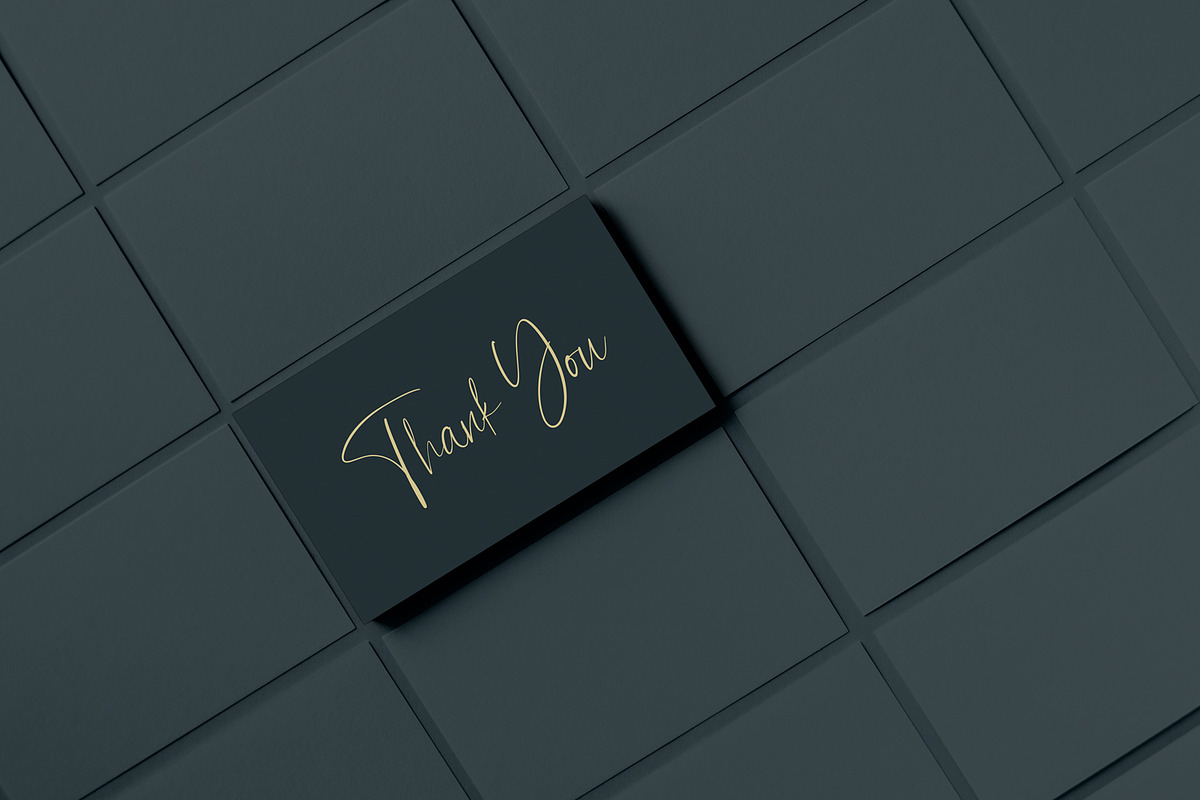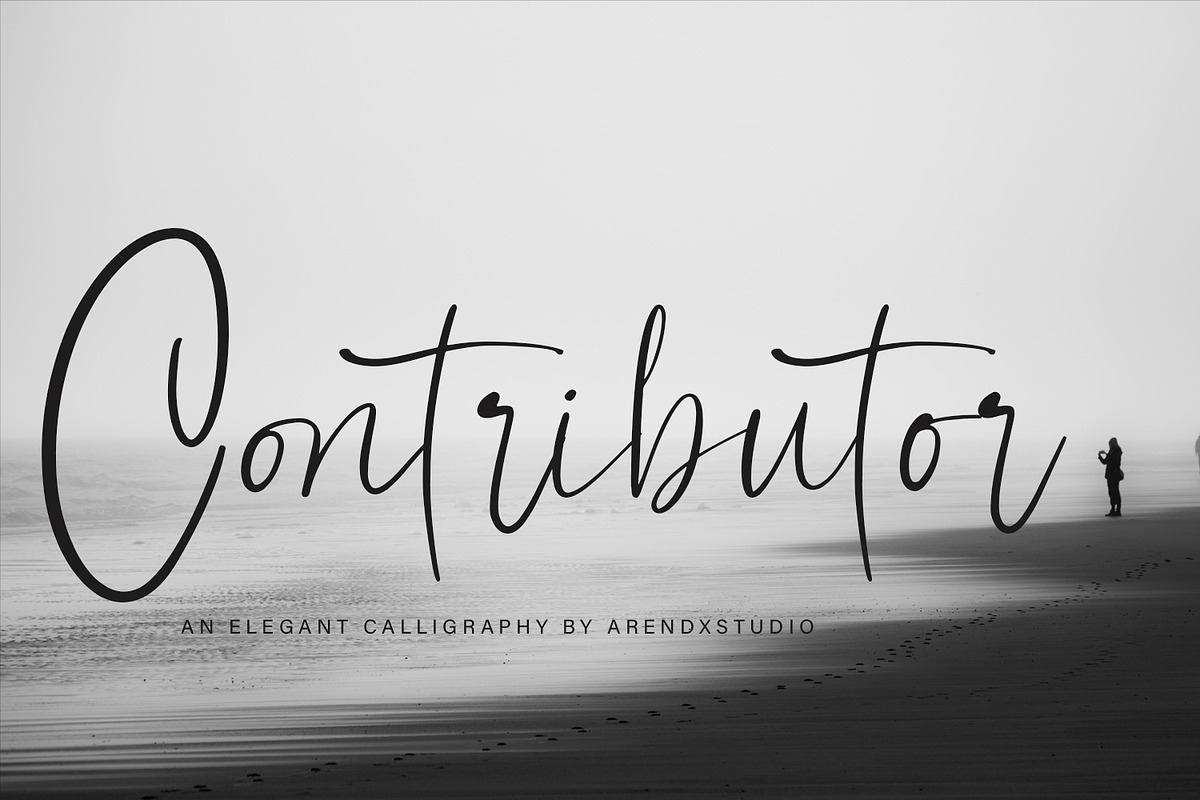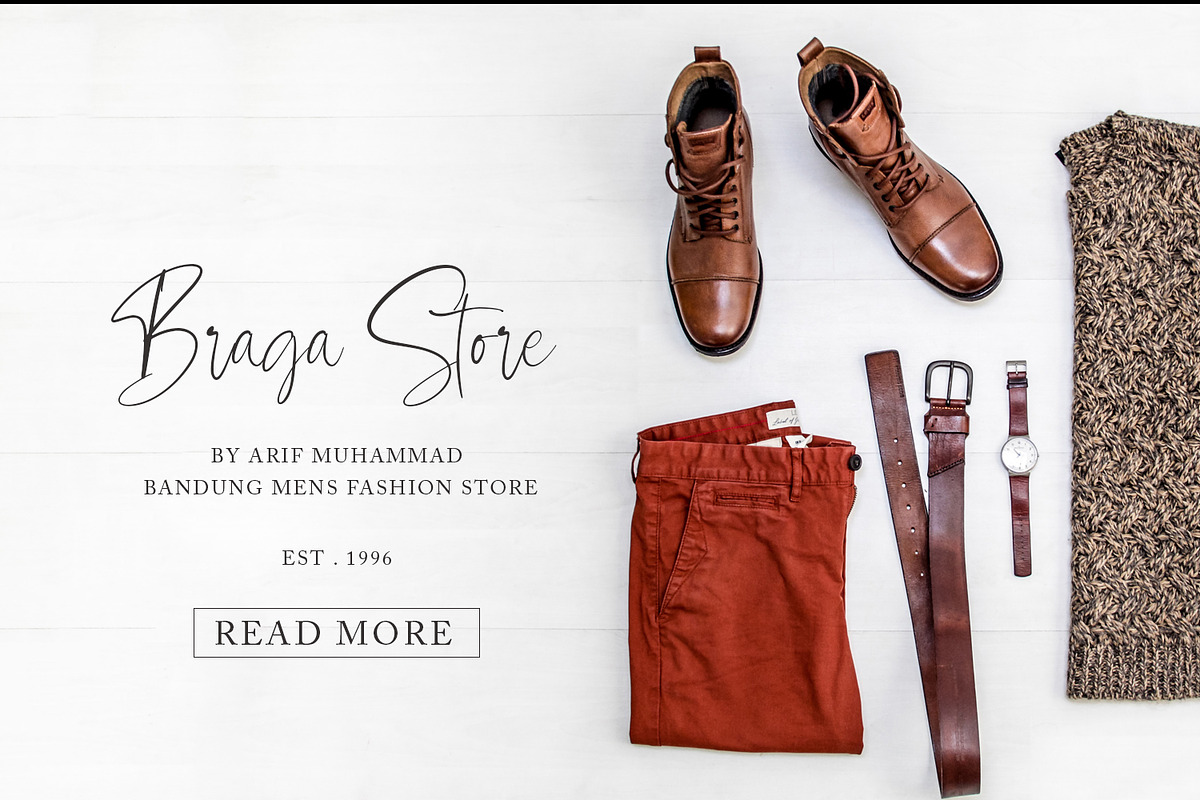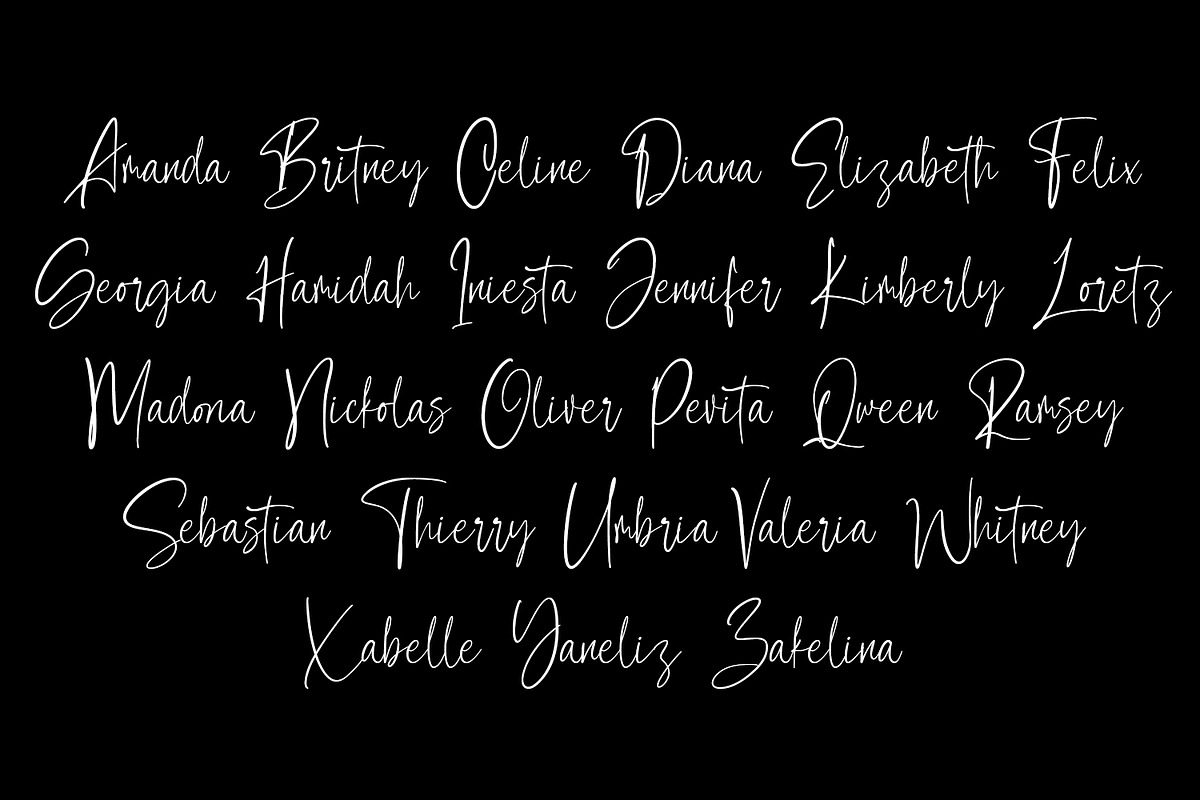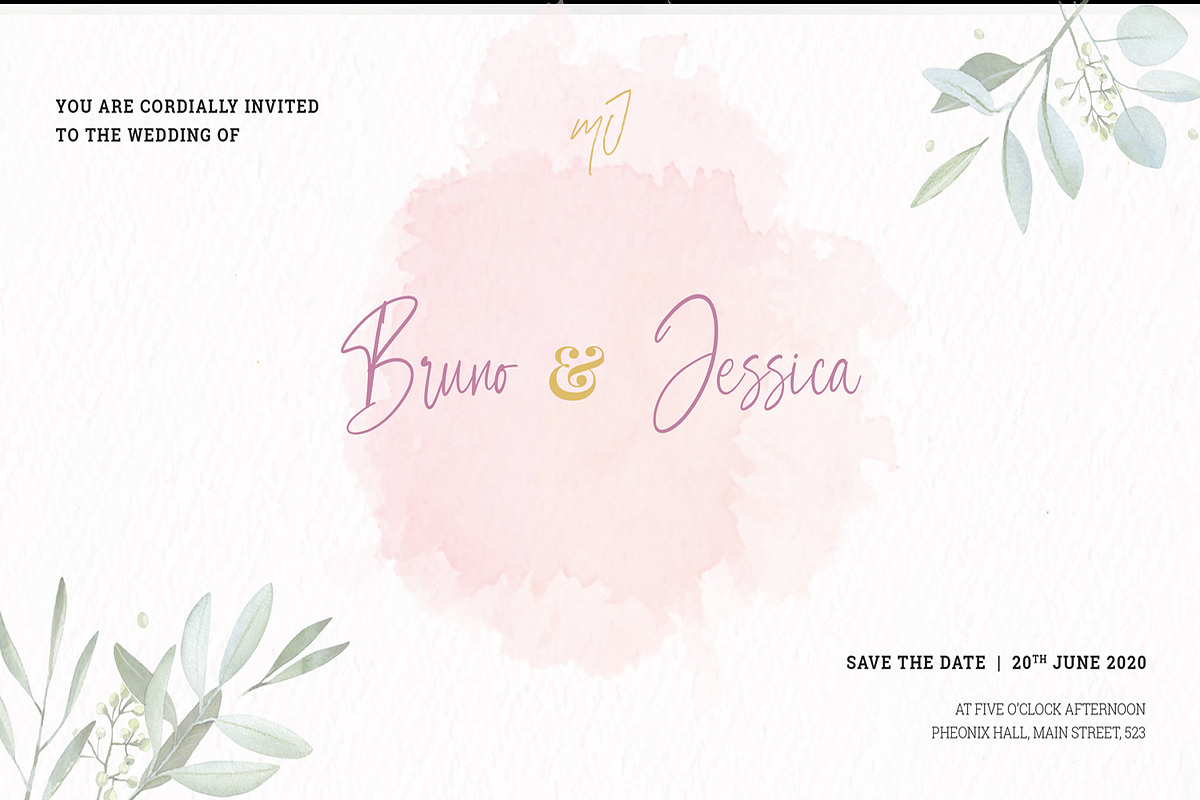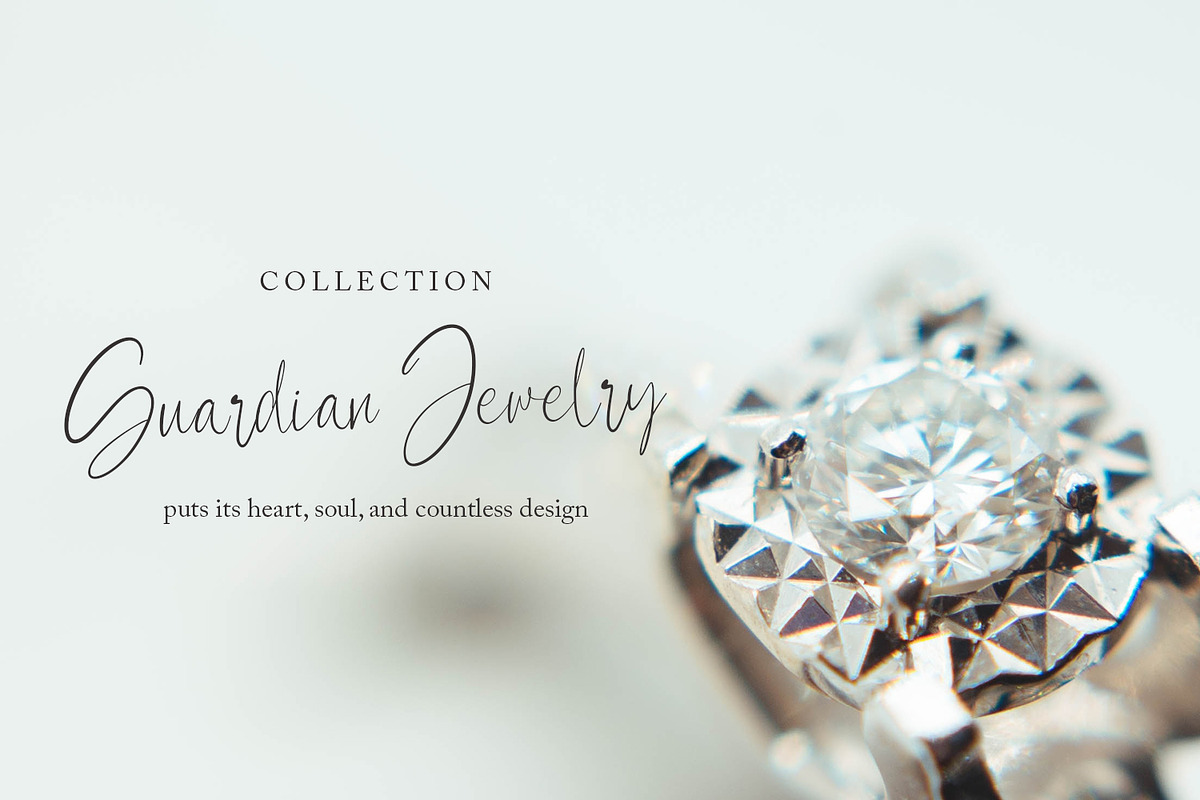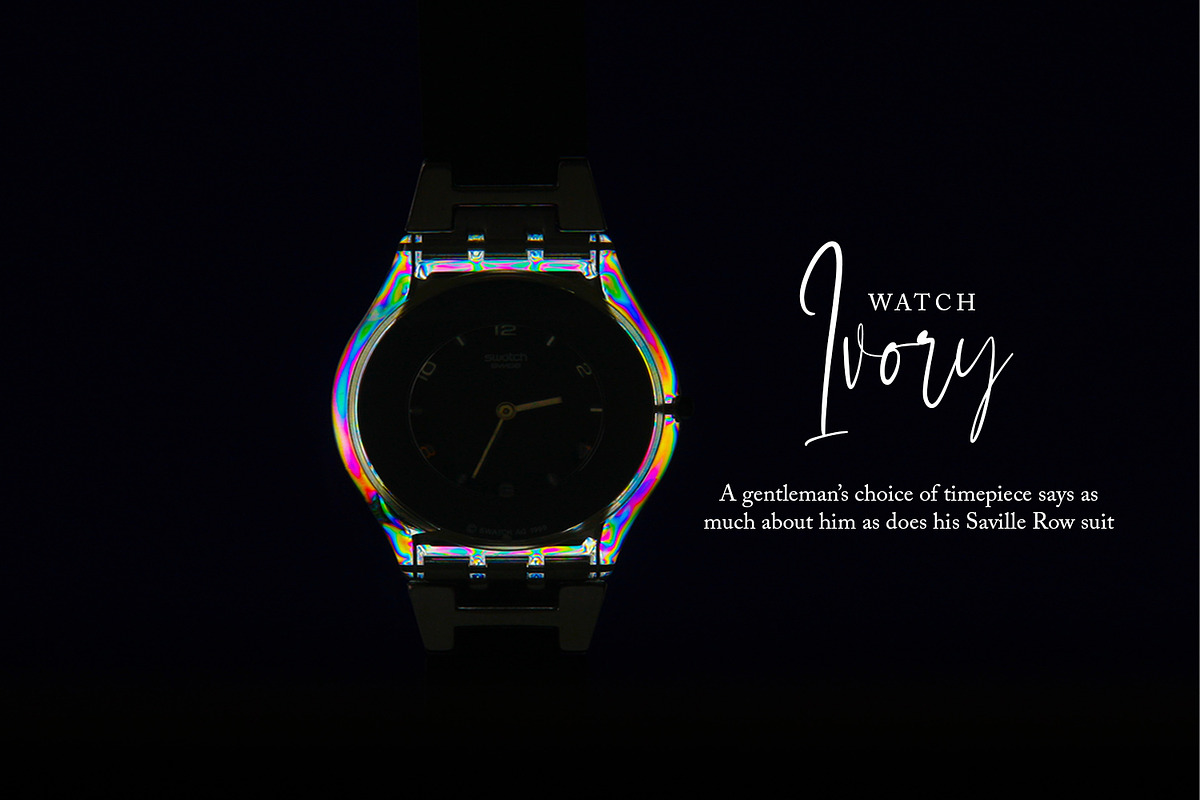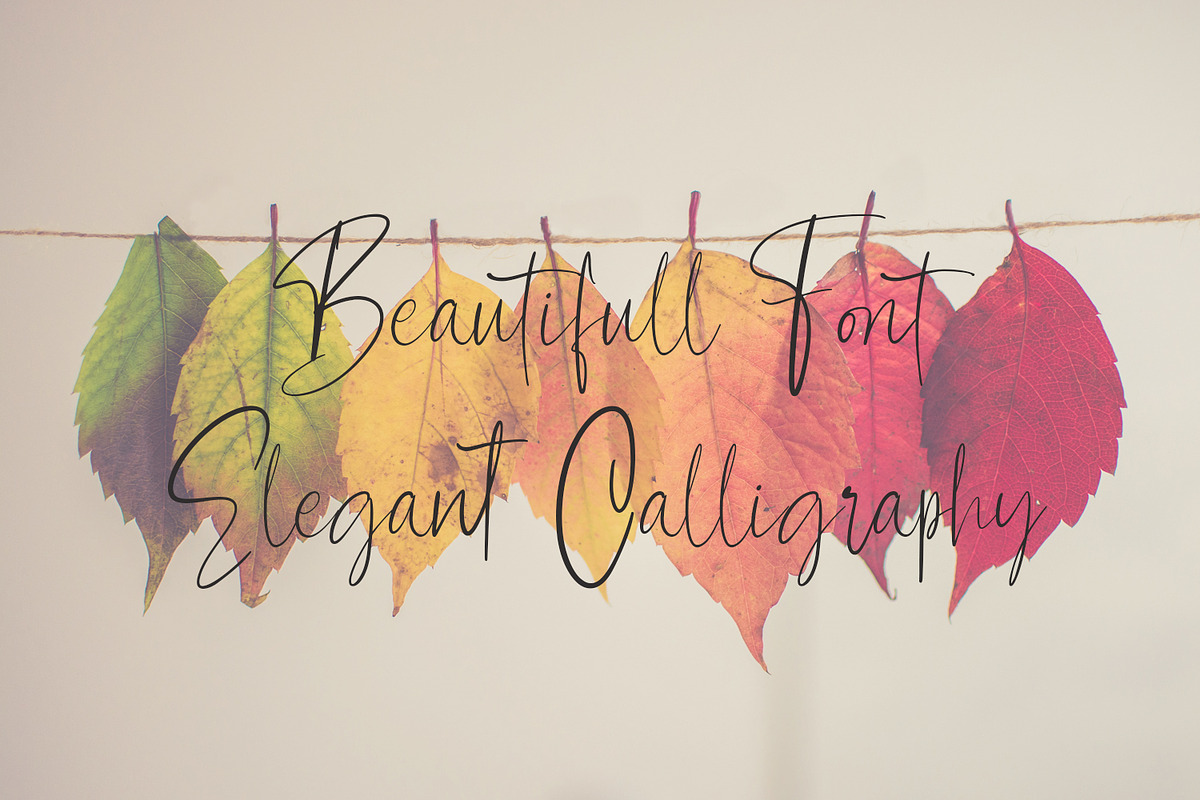
Contributor - Calligraphy Font
Contributor Luxury Calligraphy that is luxurious in a casual and distinctive style that is perfect for your branding design, and will also be very beautiful in your wedding invitations and business cards and especially for your brand name logotype
Contributor Luxury Calligraphy has beautiful Uppercase and Lowercase, figures and ligature standards that are very realistic
Contributor - Calligraphy Font by Arendxstudio fits naturally into Branding, posters, packaging, typography.